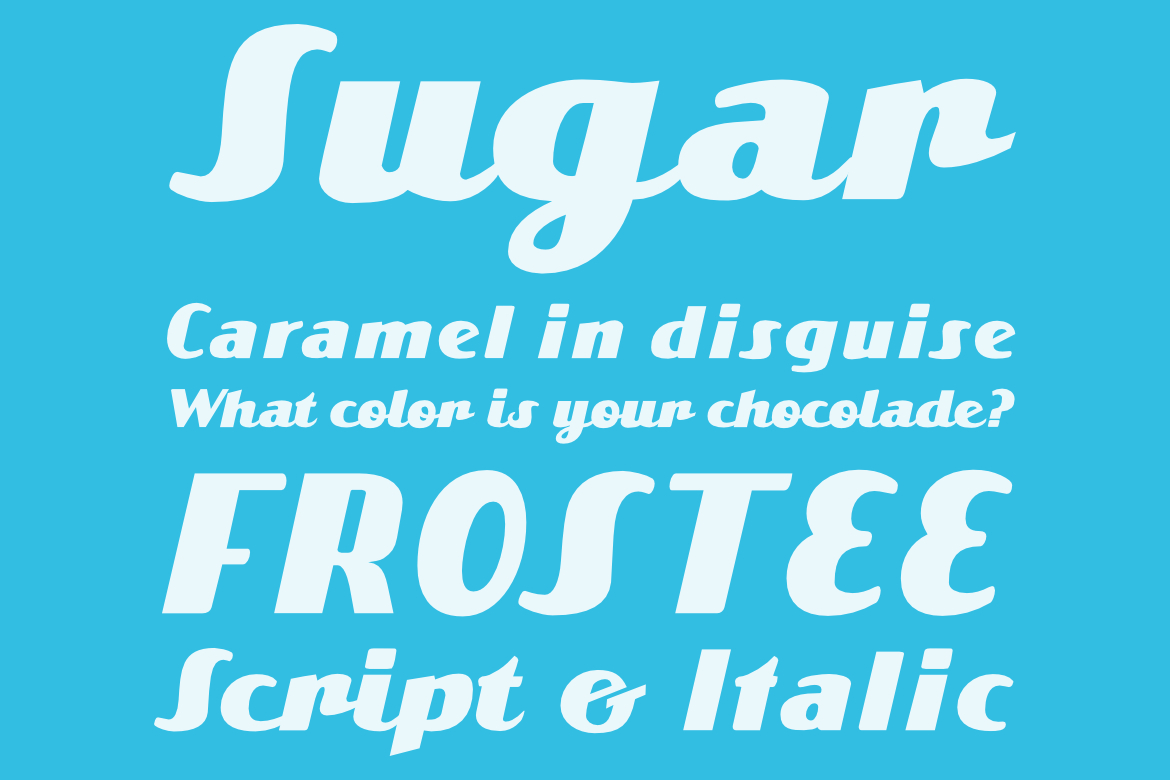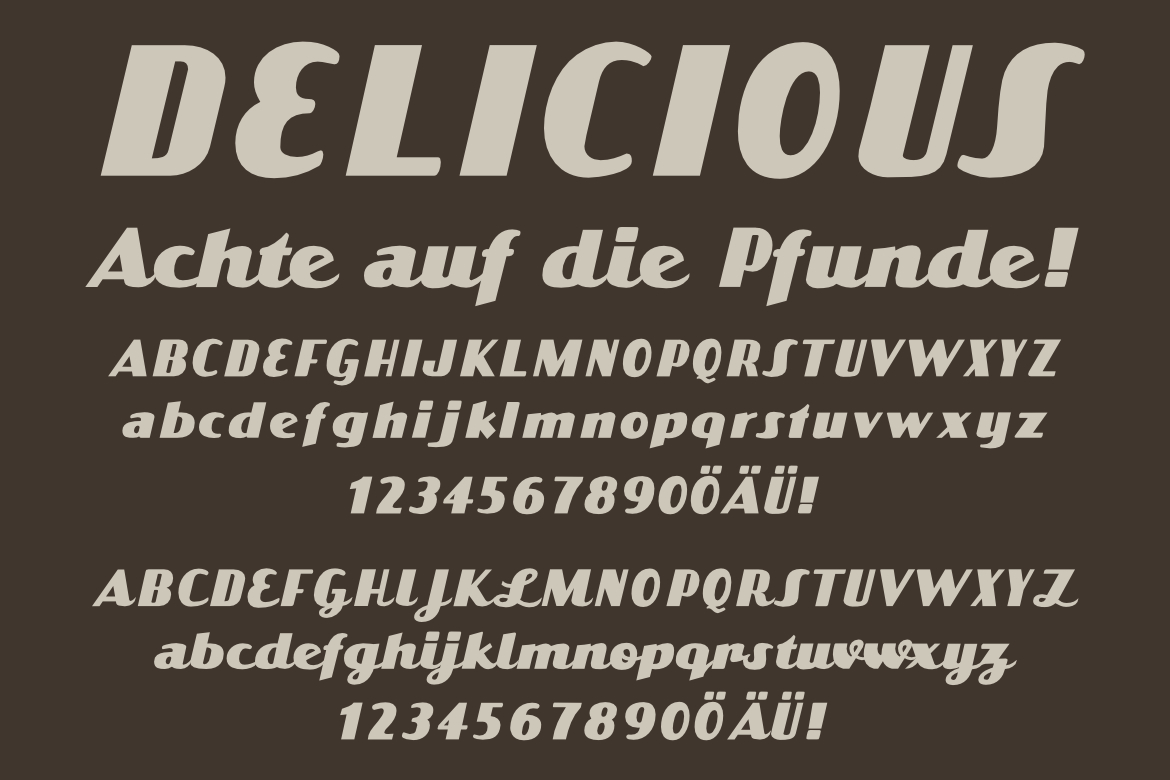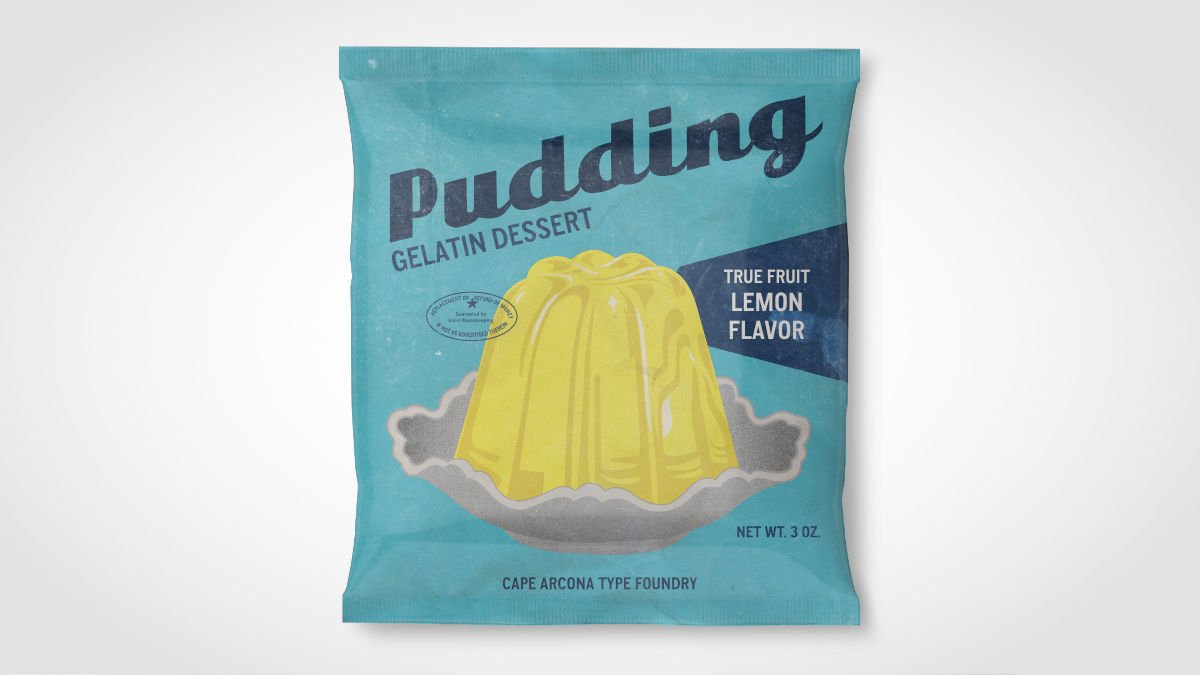
CA Emeralda
The italic version of CA Emeralda was inspired by a headline in an industrial advertisement magazine from the early fifties. Starting from a few letters, it evolved into a catchy retro font and was completed with a more modern script style.